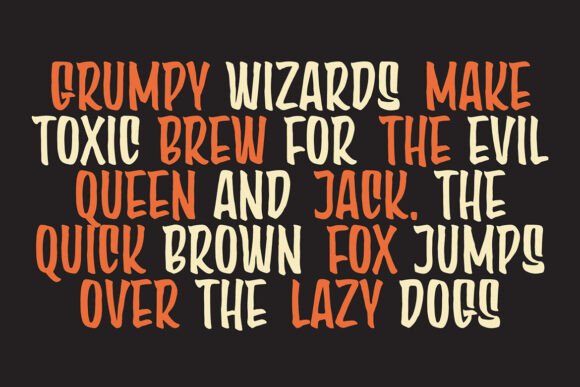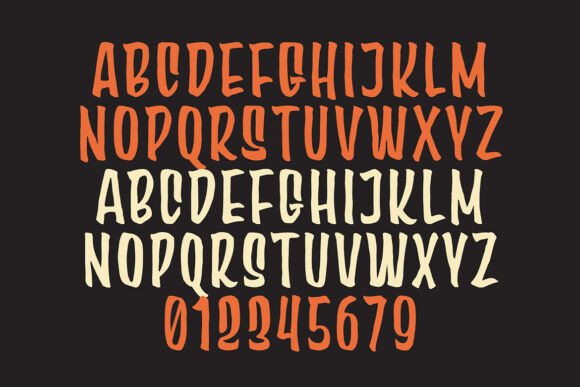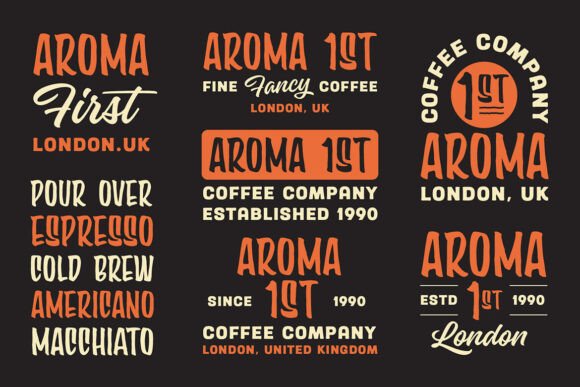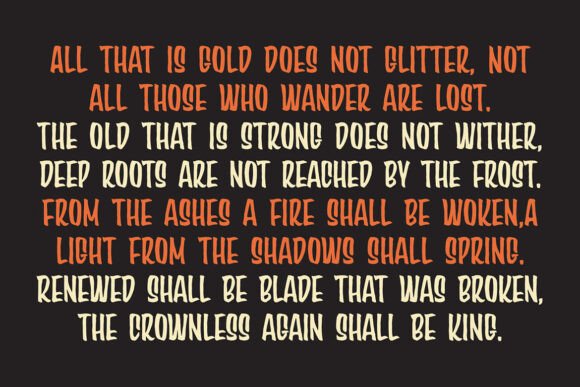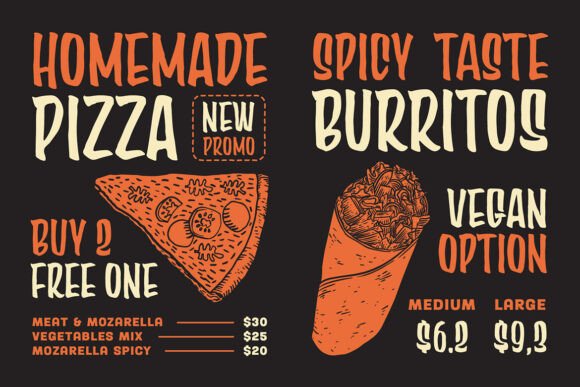
Bondston Font: The Ultimate Choice for Bold and Confident Designs
In the world of typography, a font can make or break a design project. With thousands of typefaces to choose from, selecting the right one can be overwhelming, especially for designers and crafters who want to create a lasting impression. This is where Bondston Font comes in – a typeface that boasts a unique, strong, and bold appearance, making it an attention-grabbing choice for any design project.
The Power of Bondston Font
Bondston’s unique look makes it an ideal choice for classic branding projects, especially those that require a strong and confident feel. The font’s bold and sturdy appearance is perfect for businesses that want to convey a sense of reliability, trustworthiness, and professionalism. Whether you are designing packaging for a new product or creating a logo for a start-up business, Bondston can help you create a unique and memorable brand identity.
Why Choose Bondston Font?
So, what sets Bondston Font apart from other typefaces? Here are a few reasons why designers and crafters love working with Bondston:
• Unique and Memorable: Bondston’s distinctive look makes it stand out from the crowd, ensuring that your design project will be remembered.
• Strong and Confident: The font’s bold appearance exudes confidence and reliability, making it perfect for businesses that want to establish a strong brand presence.
• Versatile: Bondston can be used for a wide range of design projects, from packaging and logos to posters and headlines.
• Attention-Grabbing: The font’s bold and sturdy appearance is designed to grab attention, making it perfect for businesses that want to make a statement.
Who is Bondston Font Suitable for?
Bondston Font is perfect for businesses that appeal to a younger or more creative audience. The font’s bold and confident look resonates with:
• Start-ups: New businesses that want to establish a strong brand presence and make a lasting impression.
• Creative Agencies: Design firms that want to create bold and attention-grabbing designs for their clients.
• Marketing and Advertising: Businesses that want to create eye-catching campaigns that grab attention.
• Product Packaging: Companies that want to create bold and memorable packaging for their products.
Tips for Using Bondston Font Effectively
To get the most out of Bondston Font, here are a few tips to keep in mind:
• Use it sparingly: Bondston’s bold appearance can be overwhelming if overused. Use it for headlines, titles, or key messages.
• Pair it with a complementary font: Combine Bondston with a simpler font to create visual interest and hierarchy.
• Experiment with colors: Bondston looks great in bold colors, so don’t be afraid to experiment and find the perfect hue for your design.
In conclusion, Bondston Font is a powerful typeface that can elevate any design project. Its unique, strong, and bold appearance makes it an attention-grabbing choice for classic branding projects, packaging, logos, and more. Whether you’re a designer, crafter, or business owner, Bondston is an excellent choice for creating a memorable brand identity. So, why settle for a ordinary font when you can make a statement with Bondston?